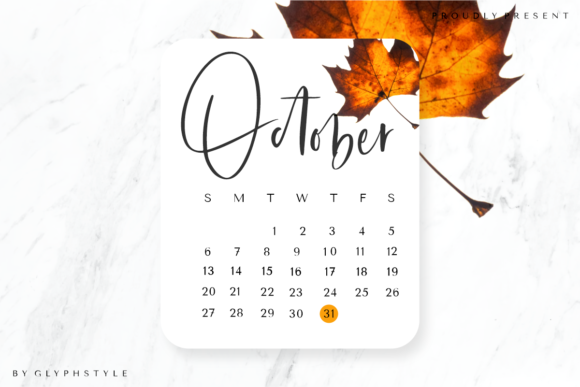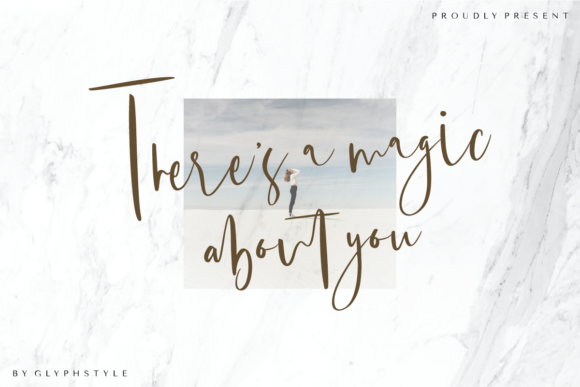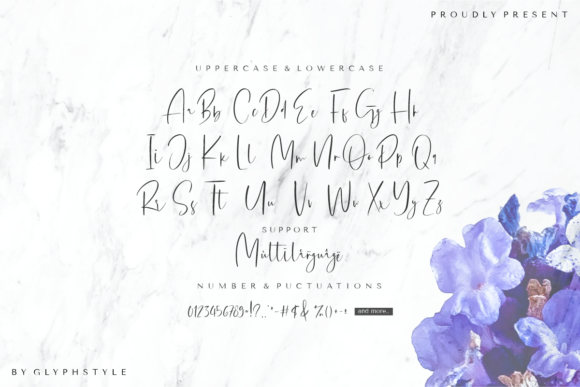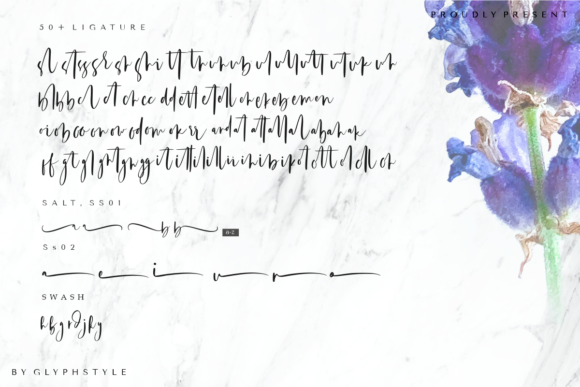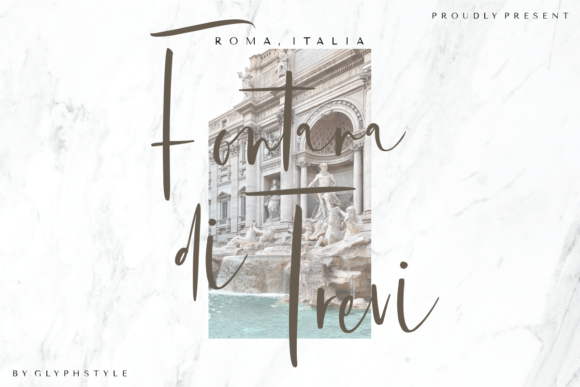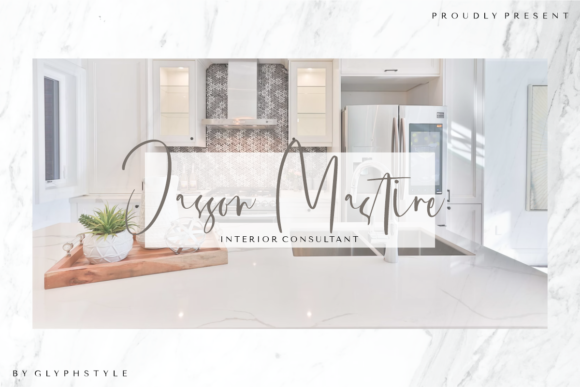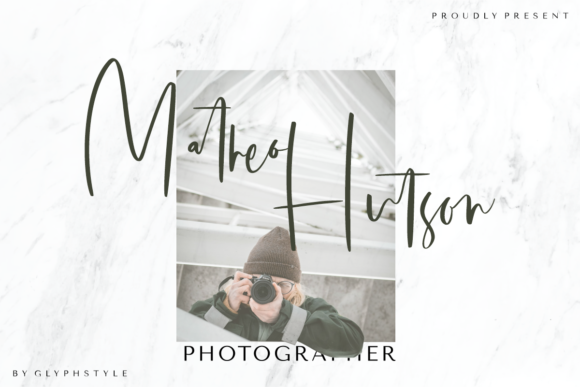
Oishigo Font
About Oishigo Font
Oishigo is a freeform handwritten font, featuring a unique style to each character.
Oishigo is perfect for branding, logos, wedding designs, social media posts, advertisements, and any project that requires a sense of beauty and style.